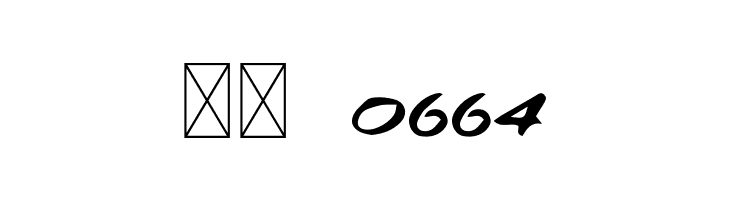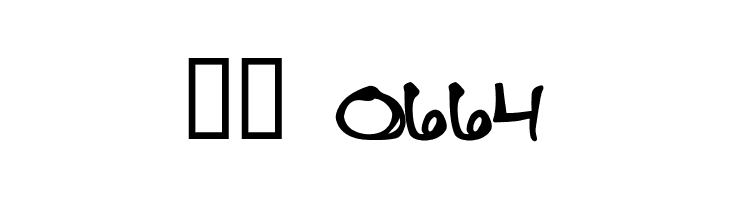
A bold, decorative font with elegant swirls and embellishments.
A playful, hand-drawn font with bold, rounded characters and a whimsical style.
A playful, handwritten font with bold, rounded strokes and an oblique style.
A playful, outlined font with a cartoonish, hand-drawn style.
A playful, outlined, and slightly oblique font with a hand-drawn feel.
A classic blackletter font with ornate and intricate letterforms.
An elegant script font with flowing, cursive letterforms and moderate stroke contrast.
A dynamic and expressive handwritten font with fluid strokes.
An elegant, flowing script font with smooth, cursive strokes.
An elegant, flowing script font with bold, cursive letterforms and decorative flourishes.
A bold, handwritten font with fluid, energetic strokes.
A fluid and elegant script font with italic styling.
A bold, three-dimensional font with overlapping outlines and an urban, graffiti-inspired style.
A bold, geometric display font with angular shapes and high contrast.
A dynamic, brush-style font with an informal, hand-drawn appearance.
A dynamic brush-style font with bold, expressive strokes.
Bold, italicized font with a 3D shadow effect and geometric design.
A bold, geometric font with Art Deco influences and shadow effects.
A whimsical heart and arrow design perfect for romantic themes.
A playful and elegant script font with flowing, interconnected strokes.
A graceful and elegant script font with flowing, cursive strokes.
A modern, geometric font with rounded edges and a clean, minimalistic design.
A modern, handwritten italic font with a sleek and fluid style.
A bold, outlined font with a modern, geometric style.
A bold, rounded geometric font with a modern and playful style.
A playful, decorative script font with heart motifs and bold, flowing characters.
A classic serif font with high contrast and elegant strokes.
A playful and whimsical script font with a handwritten style.
A bold, playful font with a three-dimensional graffiti-inspired style.
A playful and elegant script font with a handwritten feel.